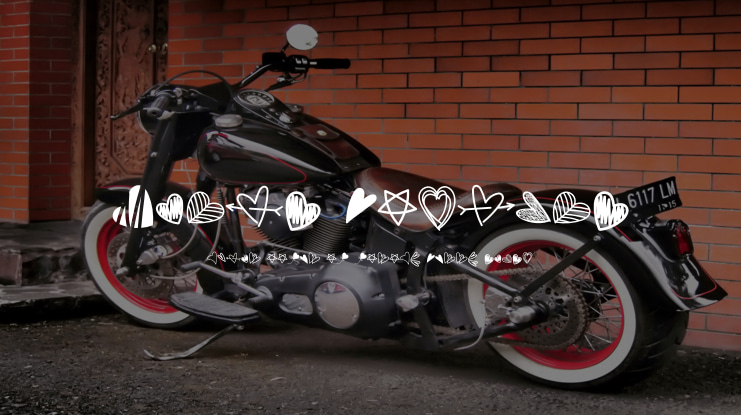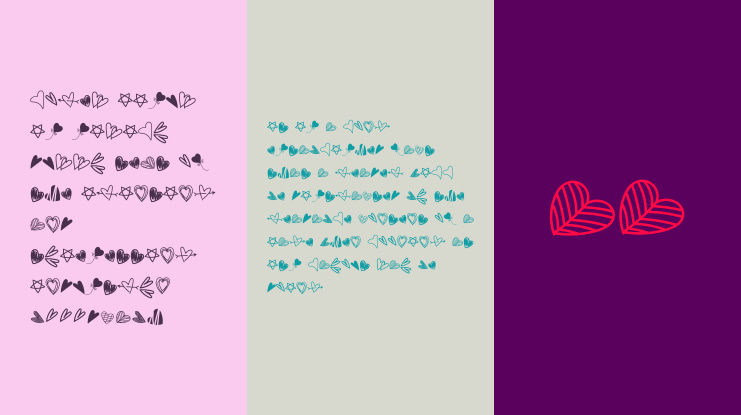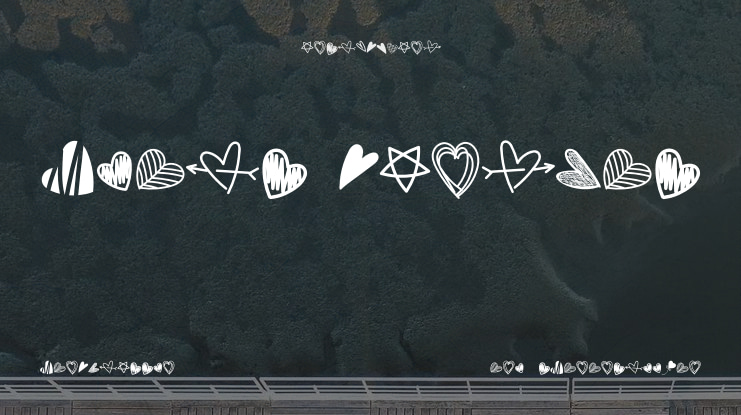
Heart Dingbat Font
Celebrate Easter with Papa Mama, a delightful duo font that combines dingbat and hand-written styles. Perfect for a variety of design projects such as cartoons, children's games, quotes, titles, branding, book covers, posters, and more. Inject a touch of joy into your creations with this versatile font.